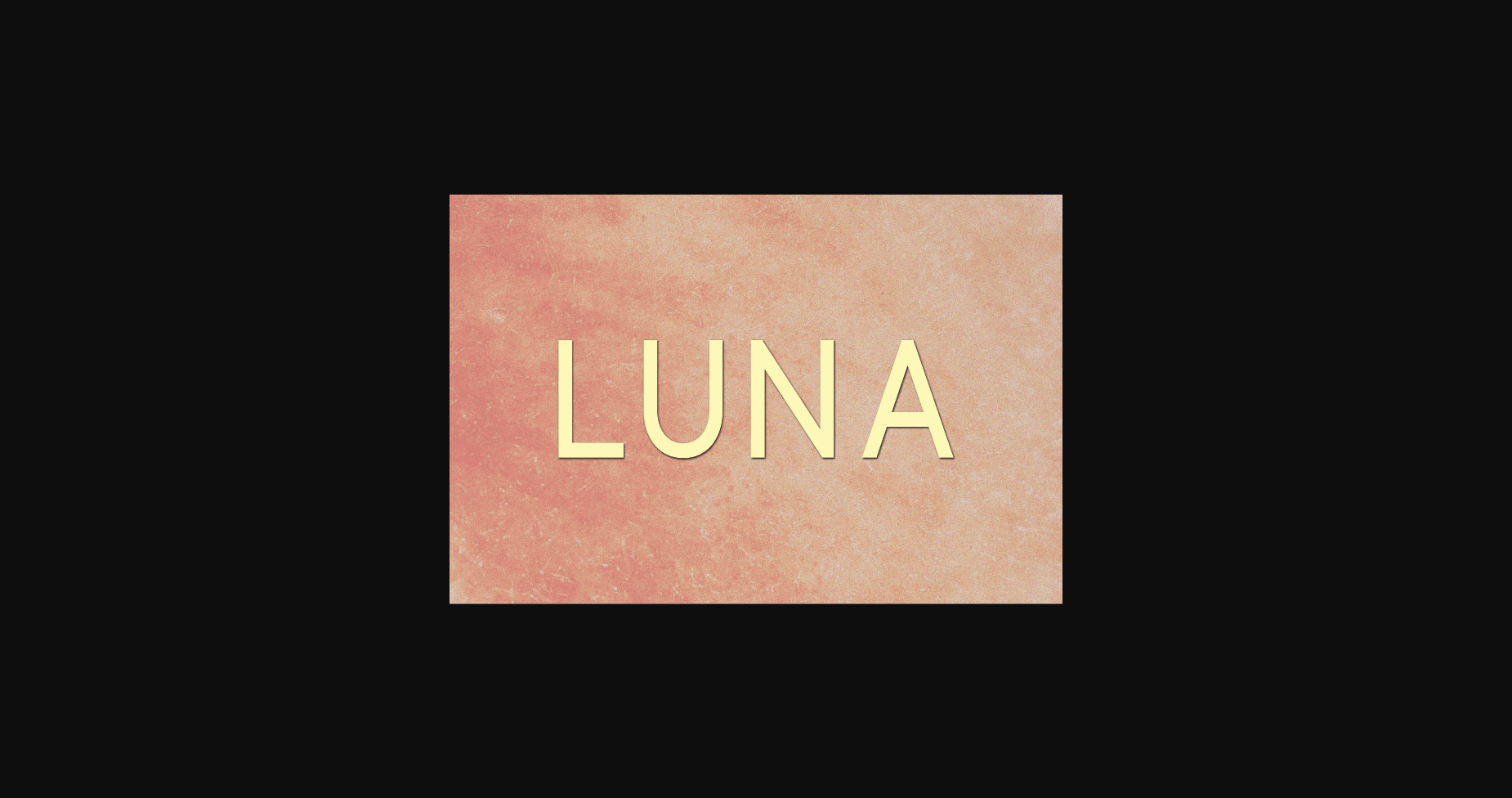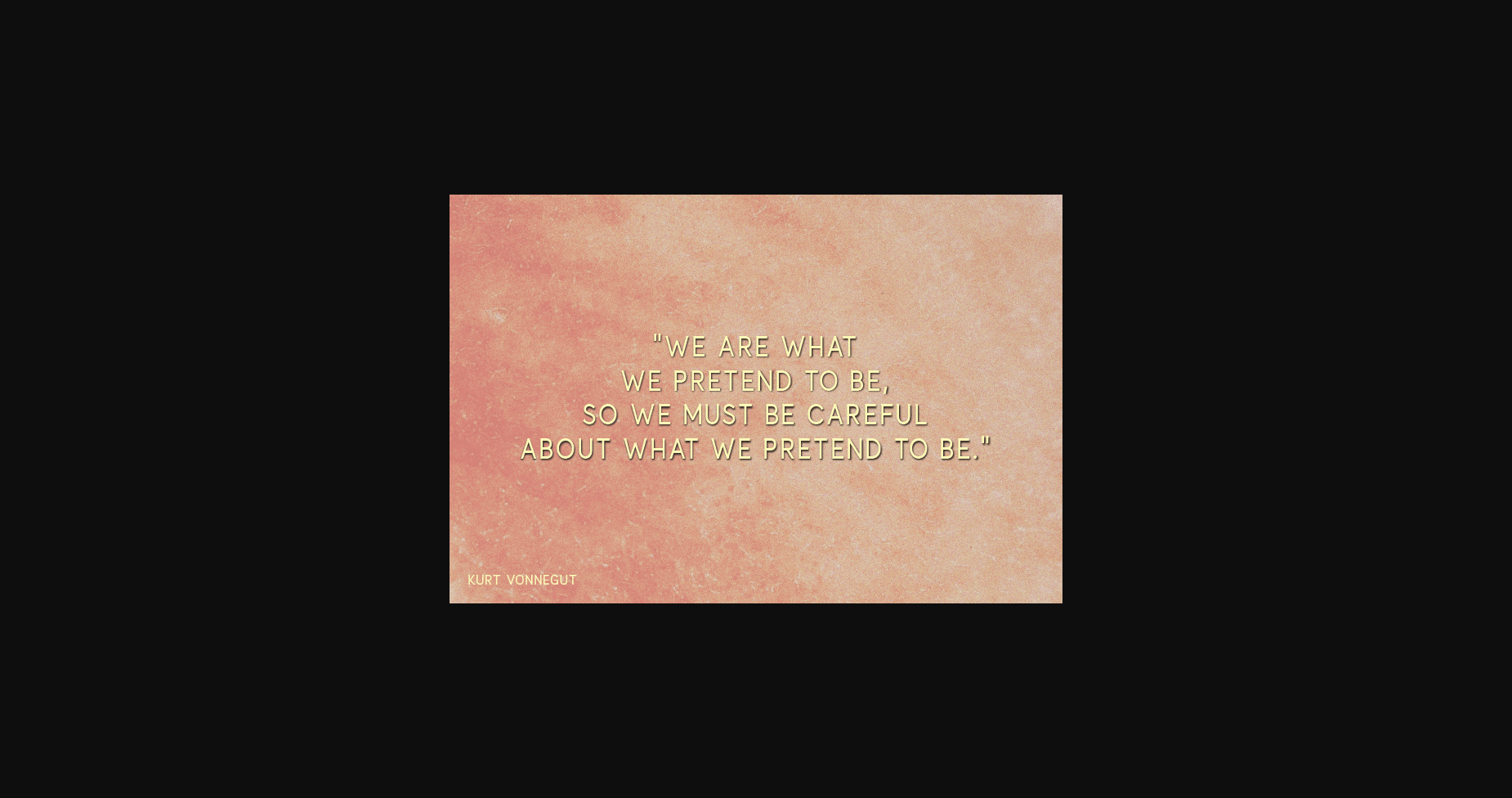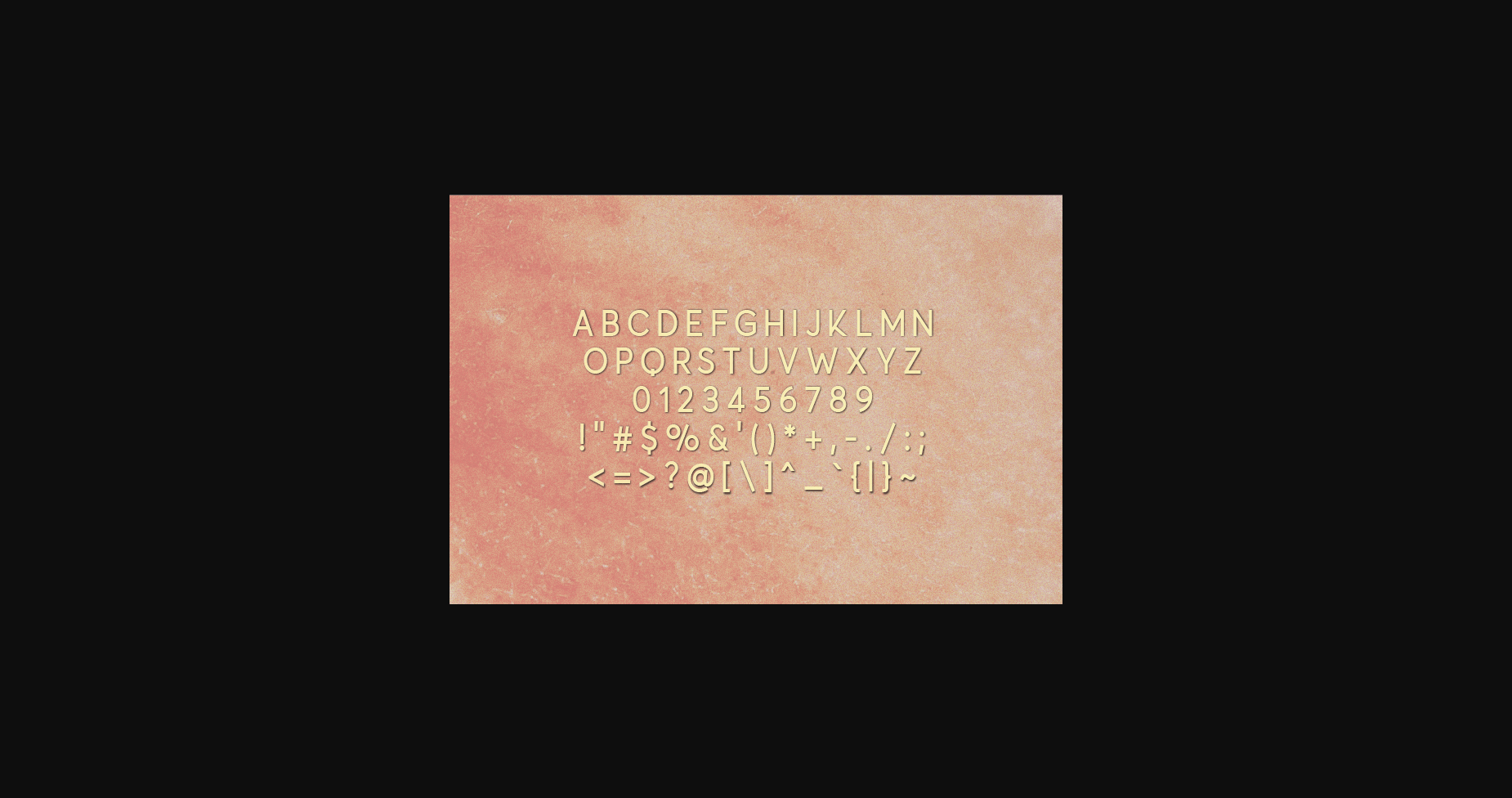
About Luna Font
Introducing Luna, a modern, classy sans serif typeface.
An extremely versatile font, perfect for logos, weddings, invitations, quotes, advertisements, print, magazines, and more!